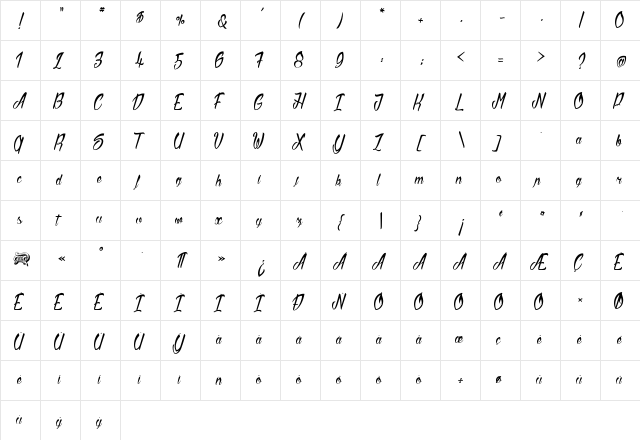
Sliced by Hand Regular
| Foundry | dcoxy Medina Gregory |
| Designer | dcoxy Medina Gregory |
Design Context for Sliced by Hand Typeface
Sliced by Hand brings a calligraphic fluidity to the page — its connecting strokes and expressive curves give it an unmistakably human quality.
Font Pairing: Combine Sliced by Hand with a simple geometric sans for maximum contrast — the tension between flowing curves and clean structure is a classic typographic pairing.
Pro Tip: Use Sliced by Hand for short runs of text — names, titles, or taglines. Extended body copy in script faces tires the eye quickly.